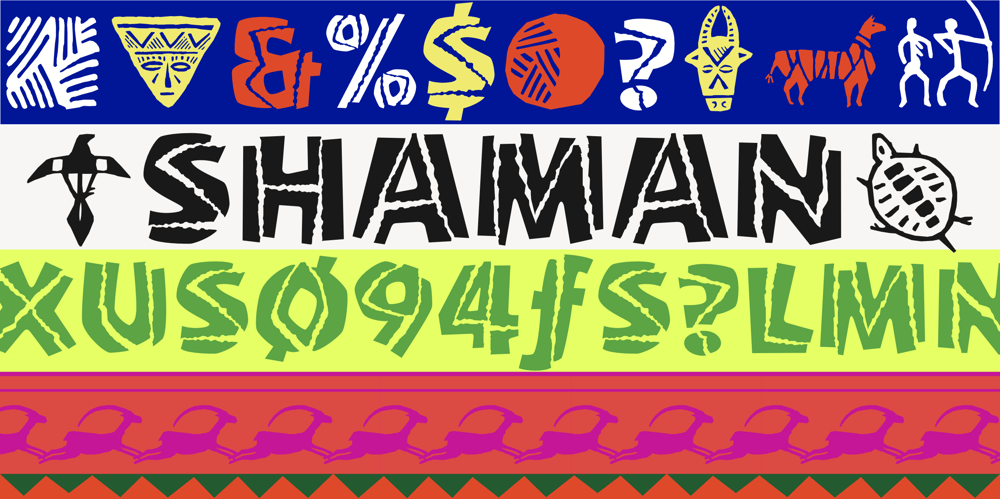
Shaman Font Family was designed by Phill Grimshaw and published by ITC. Shaman contains 1 styles and family package options. Shaman is the work of British designer Phill Grimshaw and you can almost hear the drums beating when you see it. It is a bold display typeface that features a unique, fractured effect and evokes a somehow primitive quality. Shaman is an all caps alphabet which comes complete with spot illustrations, graphic devices and a border system.